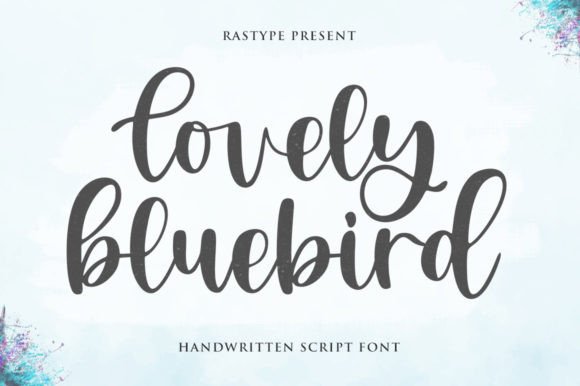
Introducing Lovely Bluebird Font - the epitome of beauty and romance! This exquisite script font will take your projects to new heights and leave a lasting impression on anyone who lays eyes on it. Whether you're designing wedding invitations, creating heartfelt thank you cards, or crafting inspirational quotes, Lovely Bluebird is the perfect choice to add a touch of elegance and sophistication.
Created by the talented rastype1010, Lovely Bluebird Font is specifically designed with wedding names in mind. Its delicate and flowing strokes bring out the essence of love and joy, making it an ideal companion for any wedding-related project. Imagine the magical atmosphere it will create when guests encounter their names written in this enchanting font!
But Lovely Bluebird Font isn't limited to just weddings. Its versatility shines through in various applications, making it a valuable asset for designers of all kinds. Whether you're designing logos, business cards, or greeting cards, this font will elevate your creations to a whole new level of excellence.
Unlock the full potential of Lovely Bluebird Font with its PUA encoding, which grants you easy access to all the intricate glyphs and swashes it offers. Say goodbye to limitations and let your creativity soar as you explore the wealth of possibilities this font brings to the table.
With its OpenType features, Lovely Bluebird Font offers a range of alternative styles, ligatures, and comprehensive language support. Embrace the freedom to customize and personalize your designs with ease, ensuring that every project reflects your unique vision and style.
In summary, Lovely Bluebird Font is the ultimate choice for those seeking beauty, elegance, and a touch of romance in their designs. Its captivating charm will captivate your audience and leave them awestruck. Let Lovely Bluebird Font be your creative companion and watch as your designs come to life with unparalleled grace and sophistication.